Ready to give projects an old-school vibe? Whether you’re making a vintage poster or adding style to a website, retro fonts can help bring a bit of nostalgia to any design.
They come in a wide range of styles, from classic serifs to bold display typefaces. Add some fun and interesting flair to your projects.
Antimage Retro Font
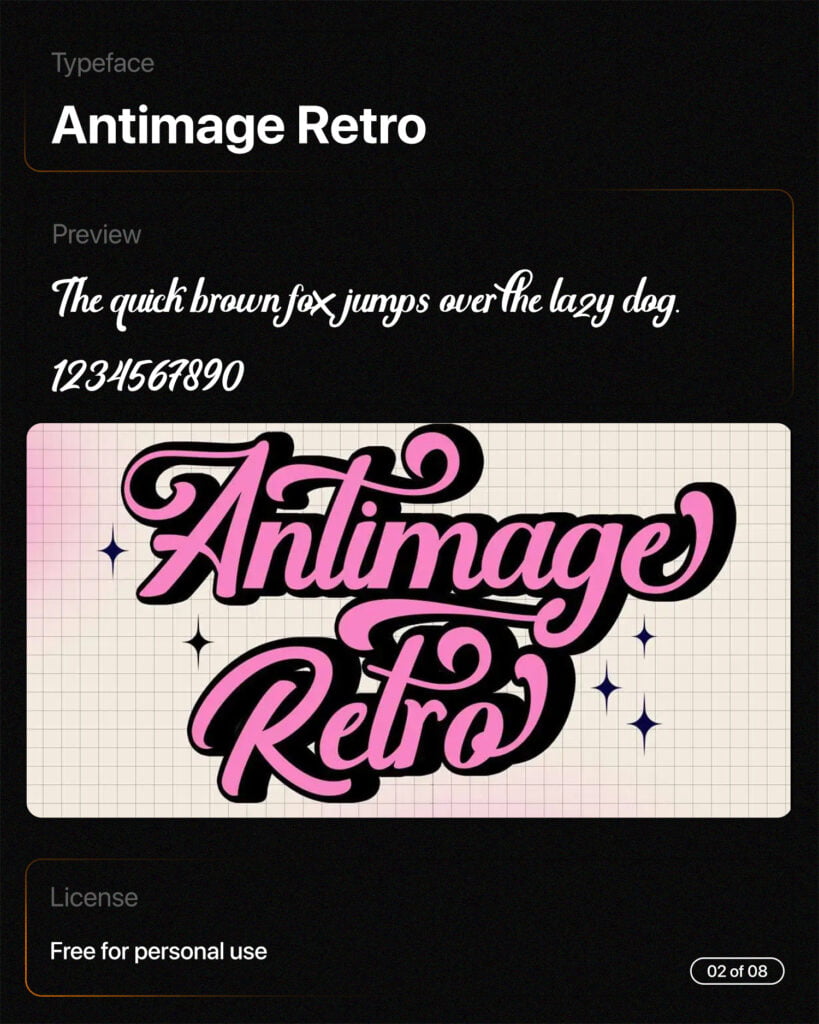
Hyokim Font
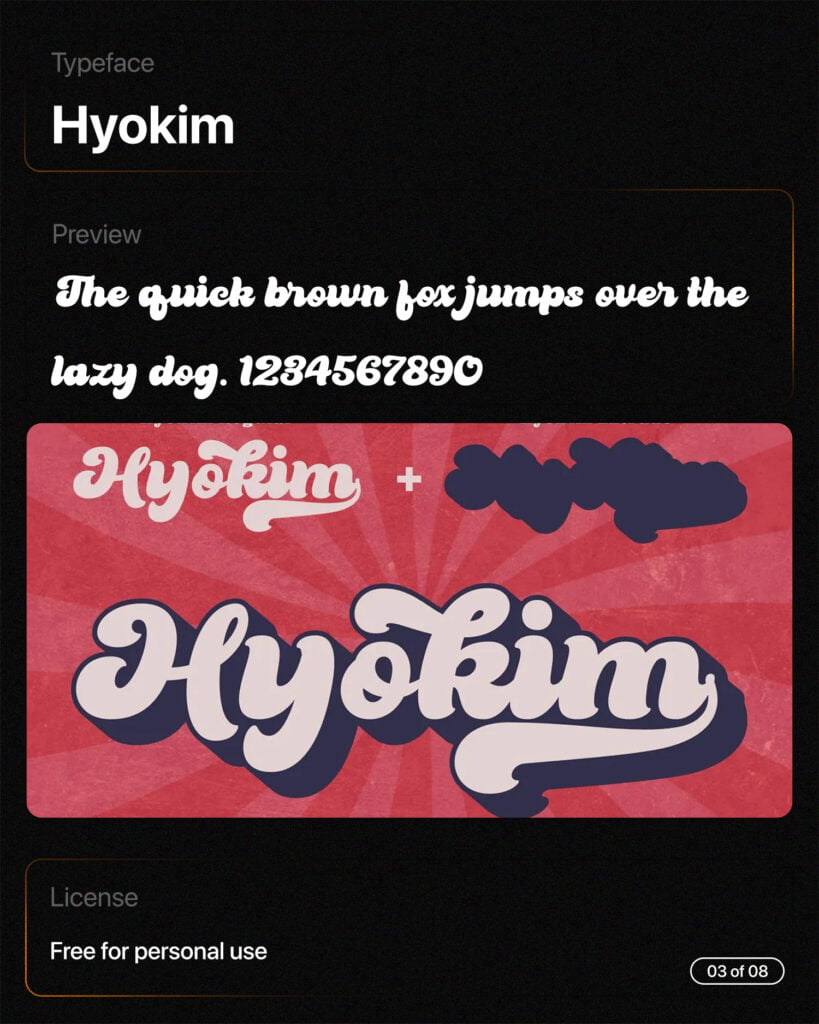
Pinky Retro Font
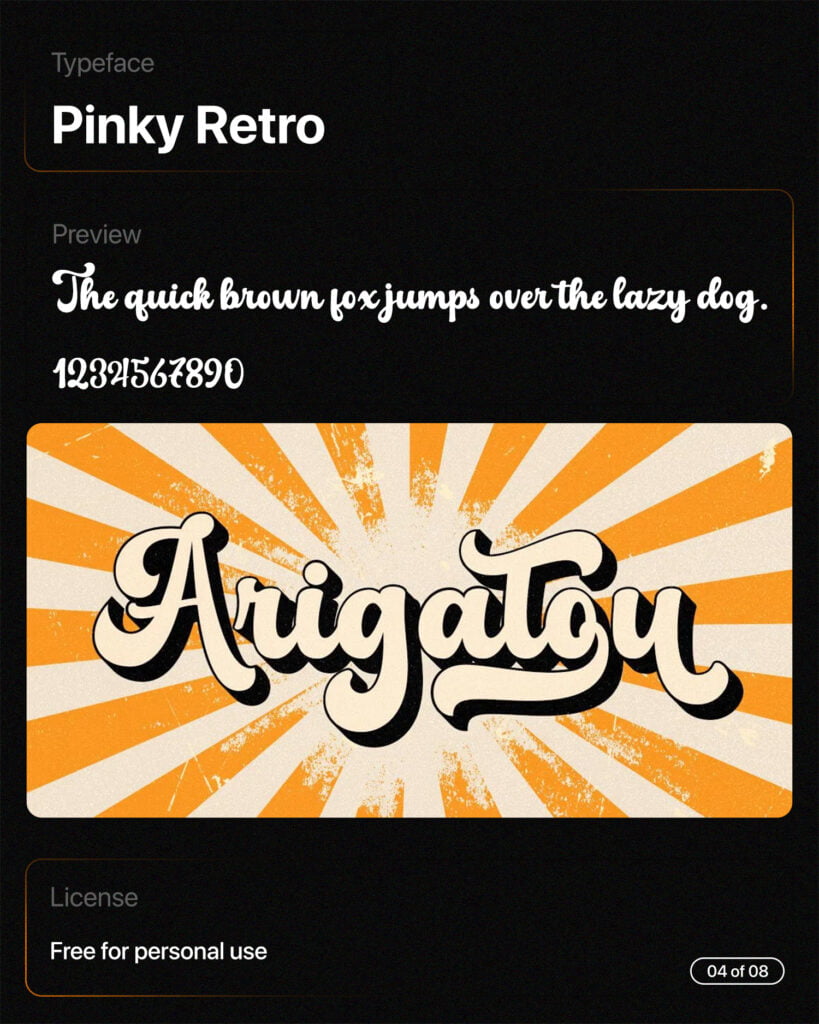
Raindec Font
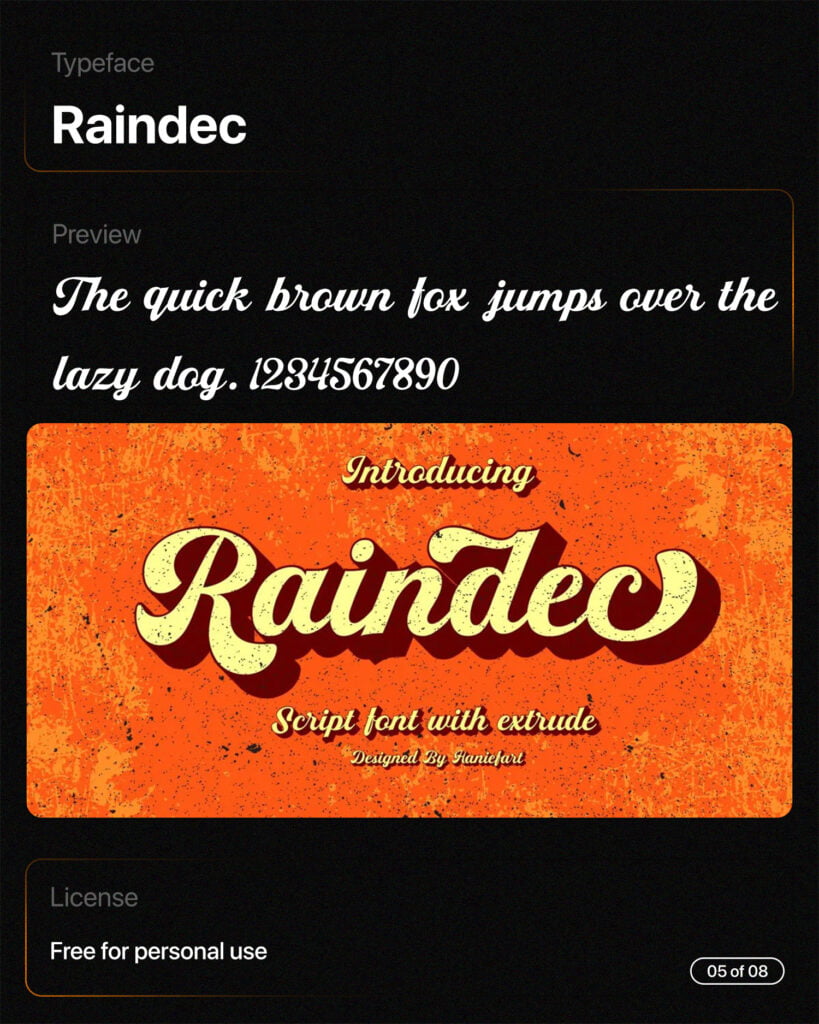
Raphila Retro Font
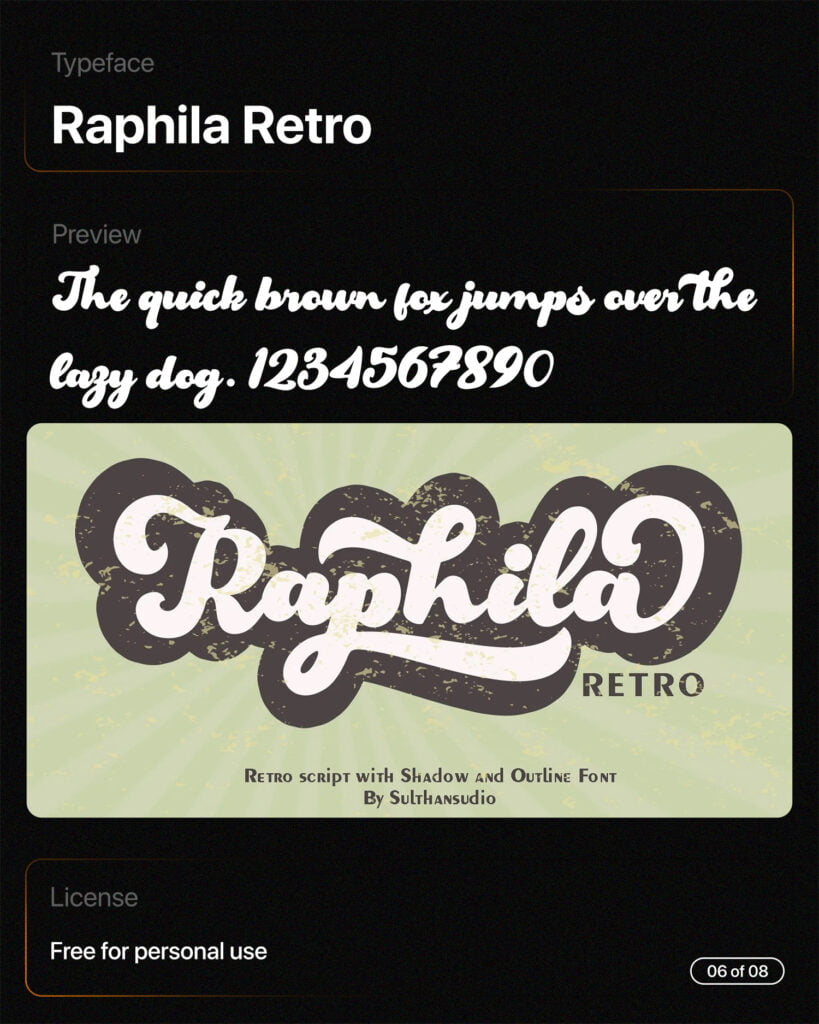
Retro Blanche Font